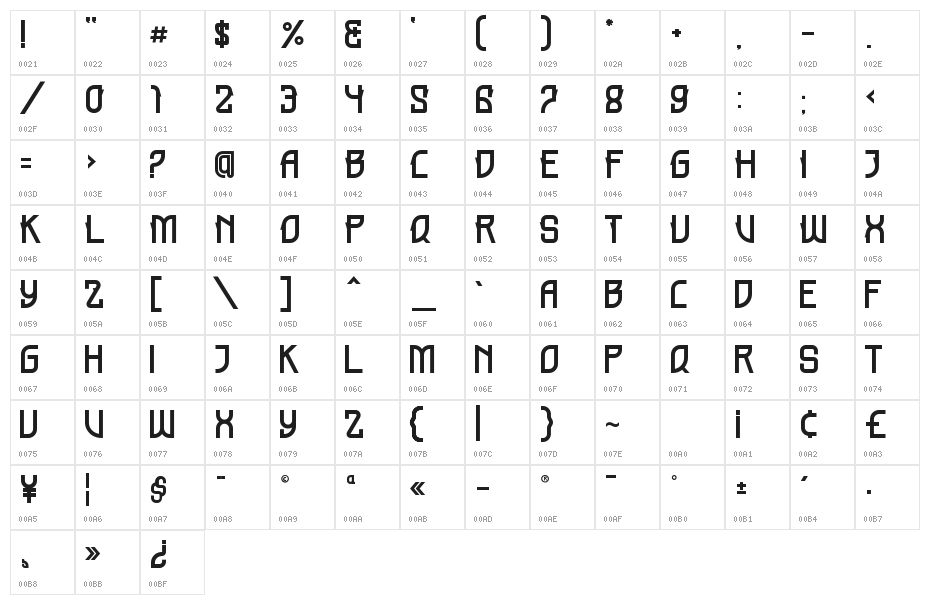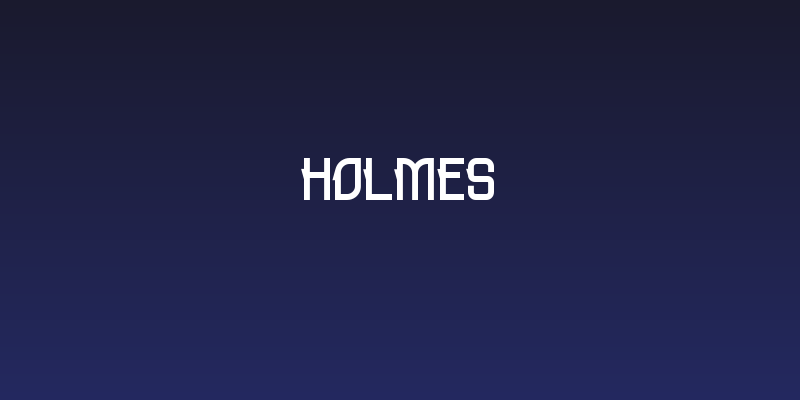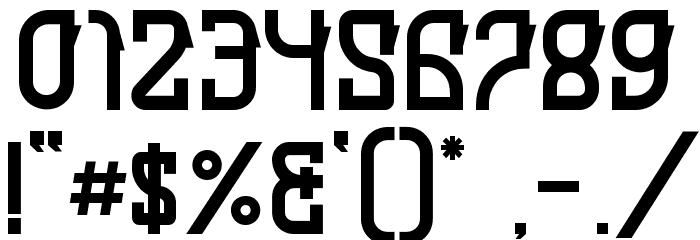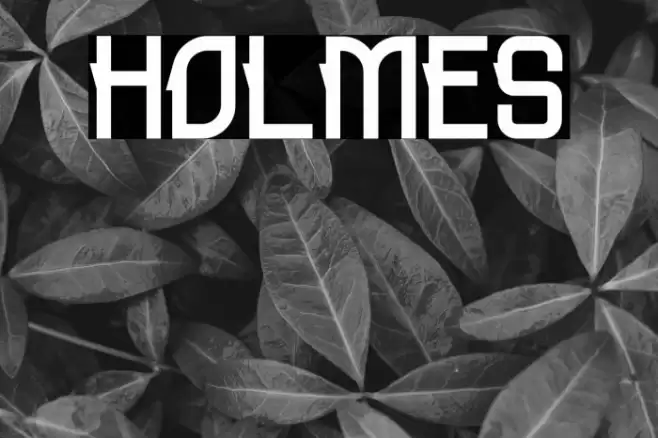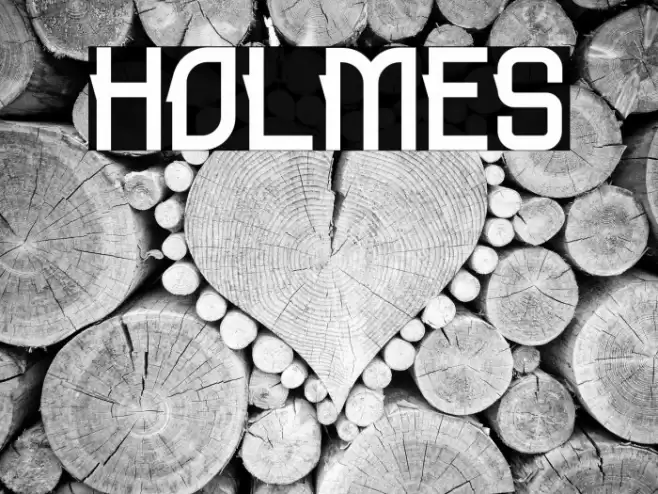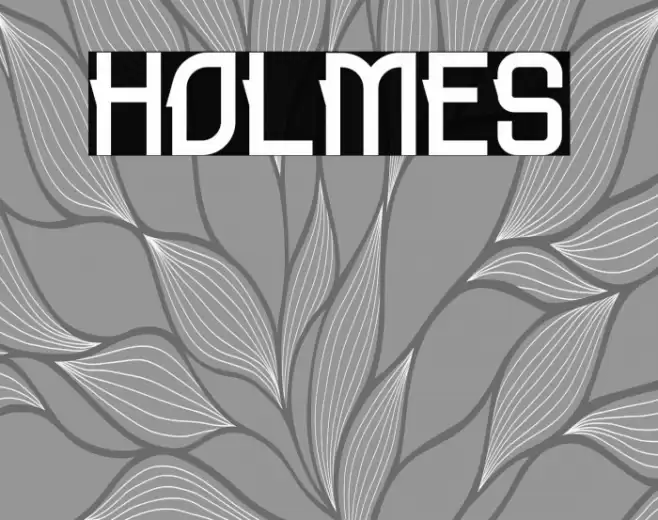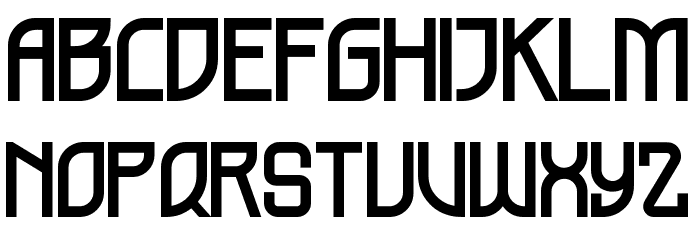
HOLMES Font
HOLMES Description
This font features a bold, geometric design with a modern twist. The characters are constructed with sharp angles and clean lines, giving it a futuristic and industrial feel. The uppercase letters are uniform in height, while the lowercase letters maintain a consistent style that complements the uppercase set. Numbers and special characters follow the same design principles, ensuring a cohesive look across all elements. The font's unique style makes it stand out, with a strong presence that commands attention.